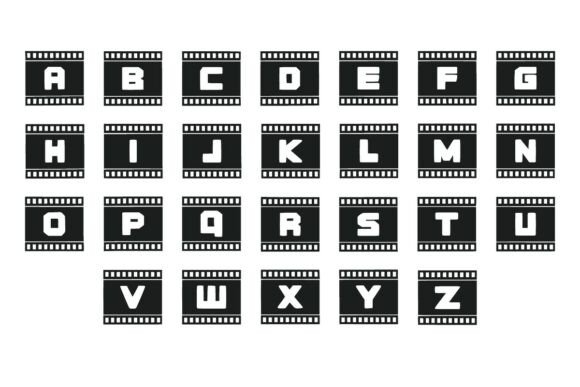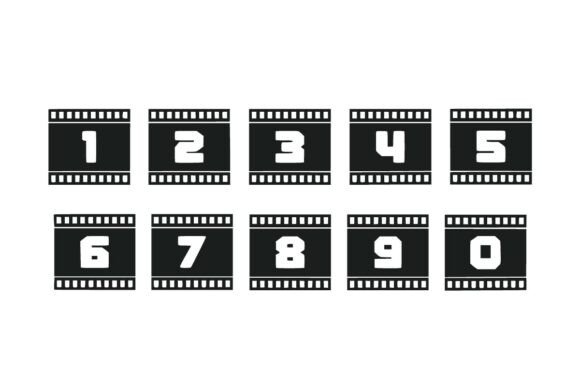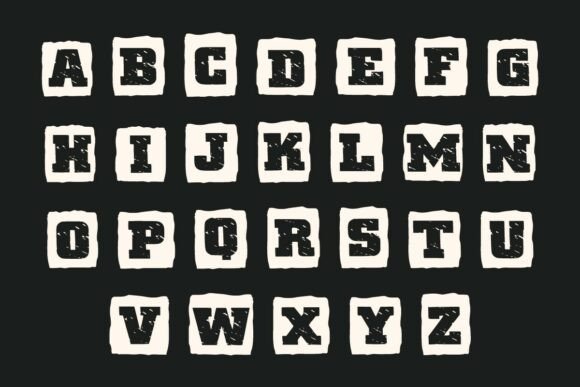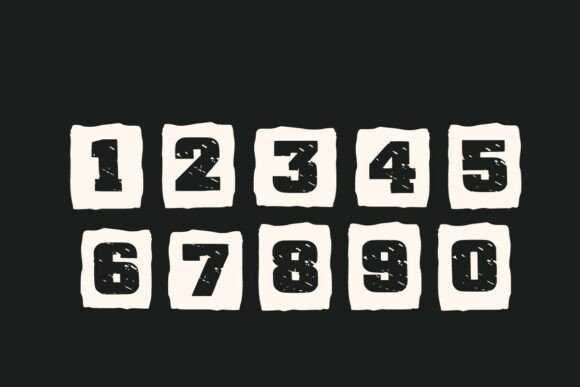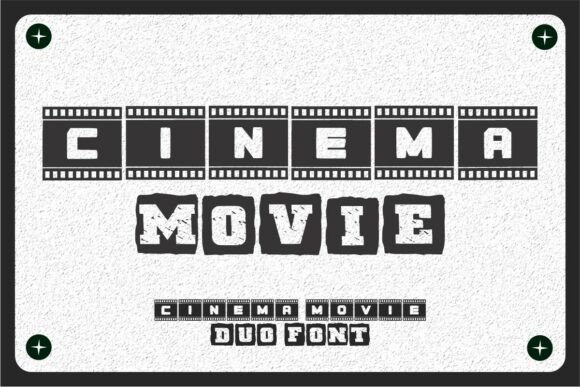
Cinema Movie Duo Font: A Modern Take on Classic Cinematic Aesthetics
Are you a designer, filmmaker, or crafty enthusiast looking for a font that captures the essence of the big screen? Look no further than the Cinema Movie Duo Font, a creative and decorative typeface that brings a modern twist to classic cinematic aesthetics. In this article, we’ll dive into the features, benefits, and uses of this unique font, and explore how it can elevate your designs and projects.
What is Cinema Movie Duo Font?
Cinema Movie Duo Font is a carefully crafted typeface that reimagines the classic look of cinema movie titles, posters, and signage. The font features massive, blocky letterforms with soft, rounded edges, each professionally framed within a stylized film strip or individual cinema frame. This distinctive design makes it perfect for creating eye-catching titles, headings, and graphics that evoke the glamour and excitement of the movies.
Key Features of Cinema Movie Duo Font
- Unique Letterforms: The font boasts massive, blocky letterforms with soft, rounded edges, giving it a distinctive and recognizable look.
- Stylized Film Strip Frames: Each letter is professionally framed within a stylized film strip or individual cinema frame, adding an extra layer of cinematic flair.
- Modern and Thematic: The font strikes a perfect balance between modern design sensibilities and classic cinematic aesthetics.
- High-Quality Design: The font is meticulously crafted to ensure high-quality rendering and crisp lines, making it suitable for a wide range of applications.
Benefits of Using Cinema Movie Duo Font
So why choose Cinema Movie Duo Font for your next project? Here are just a few benefits of using this versatile typeface:
- Add a Touch of Hollywood Glamour: Instantly elevate your designs with the luxurious, high-end feel of Cinema Movie Duo Font.
- Stand Out from the Crowd: The font’s unique design ensures that your titles, headings, and graphics will grab attention and leave a lasting impression.
- Perfect for Film and Design Projects: Whether you’re working on a film, TV show, or design project, Cinema Movie Duo Font is the perfect choice for creating eye-catching titles and graphics.
Uses of Cinema Movie Duo Font
Cinema Movie Duo Font is an incredibly versatile typeface that can be used in a variety of contexts, including:
- Film and TV Titles: Create eye-catching titles and credits for your film or TV show.
- Movie Posters: Design stunning movie posters that capture the essence of the big screen.
- Graphic Design Projects: Use the font to add a touch of cinematic flair to your graphic design projects, such as brochures, flyers, and posters.
- Crafting and DIY: Add a professional touch to your crafting and DIY projects, such as handmade cards, invitations, and decorations.
Tips and Tricks for Using Cinema Movie Duo Font
To get the most out of Cinema Movie Duo Font, here are a few tips and tricks to keep in mind:
- Experiment with Colors: Try pairing the font with bold, bright colors to create a truly eye-catching design.
- Play with Sizes: Experiment with different font sizes to create visual interest and hierarchy in your design.
- Add Texture and Patterns: Add texture and patterns to your design to give it an extra layer of depth and visual interest.
Cinema Movie Duo Font is a unique and versatile typeface that brings a modern twist to classic cinematic aesthetics. With its massive, blocky letterforms, stylized film strip frames, and high-quality design, it’s perfect for designers, filmmakers, and crafty enthusiasts looking to add a touch of Hollywood glamour to their projects. Whether you’re working on a film, TV show, or design project, Cinema Movie Duo Font is sure to make a lasting impression.